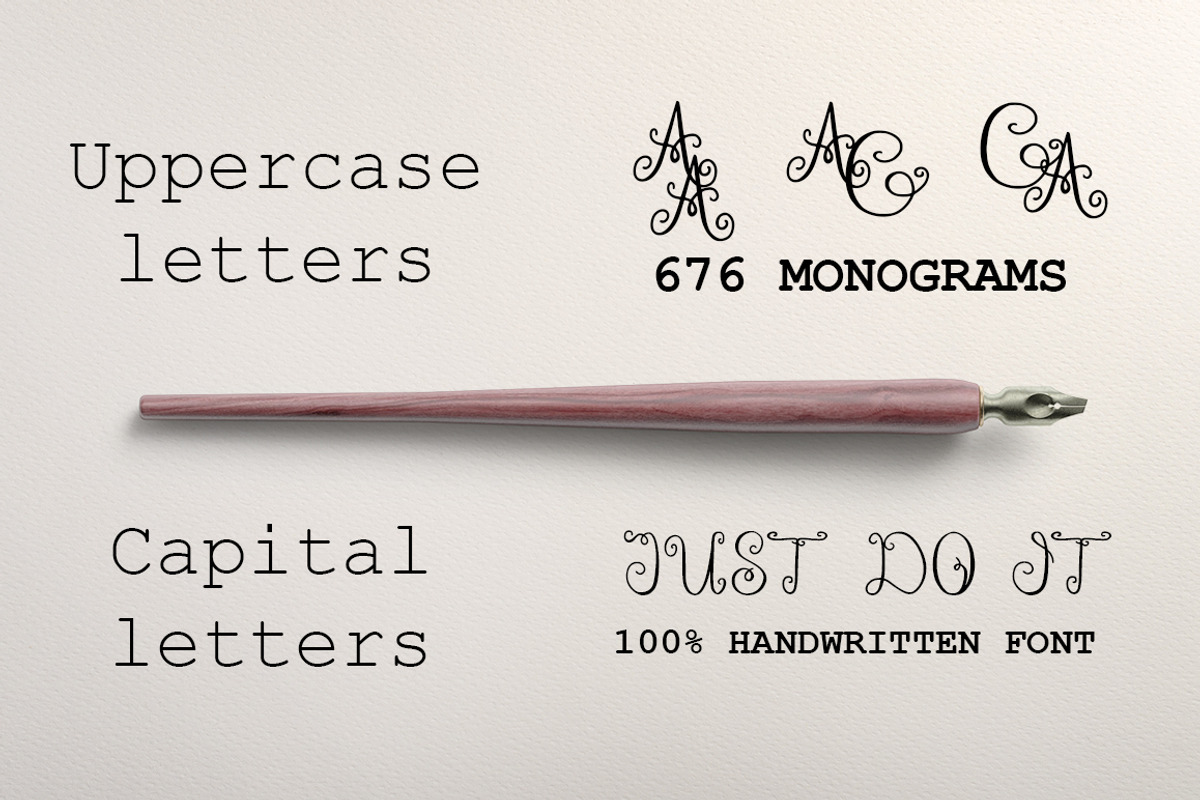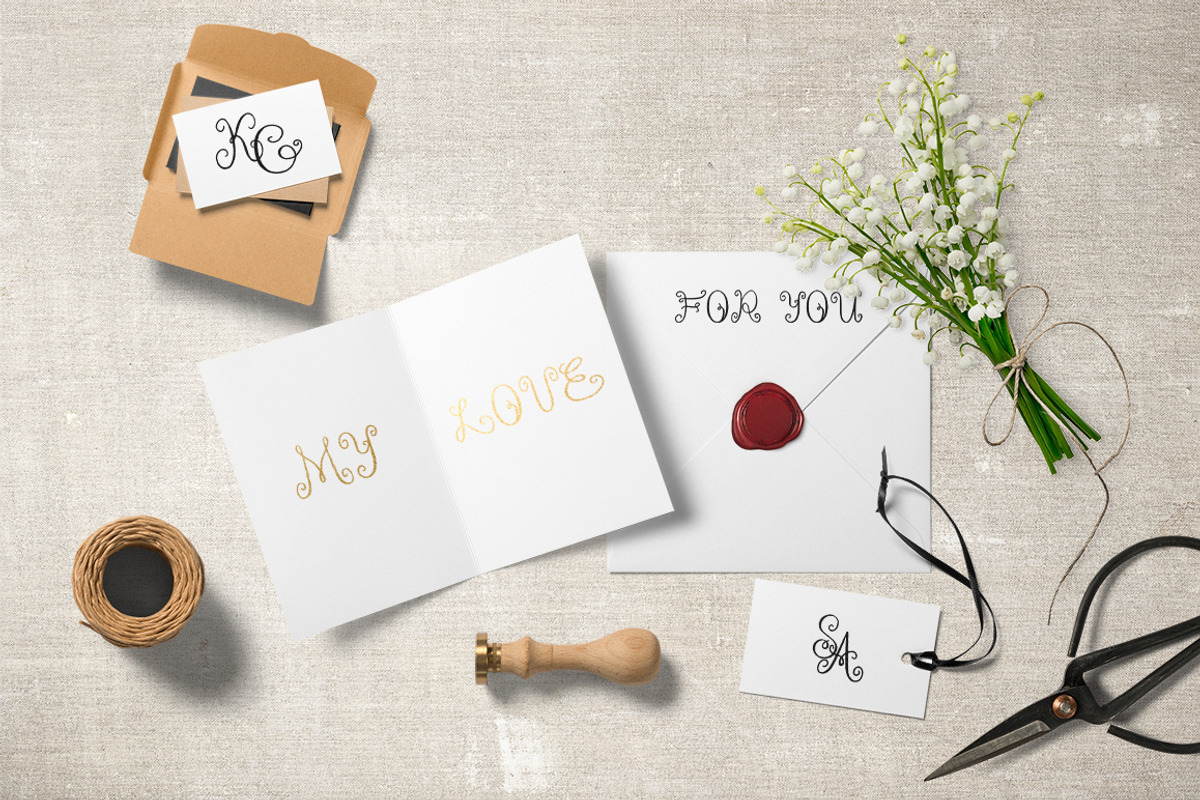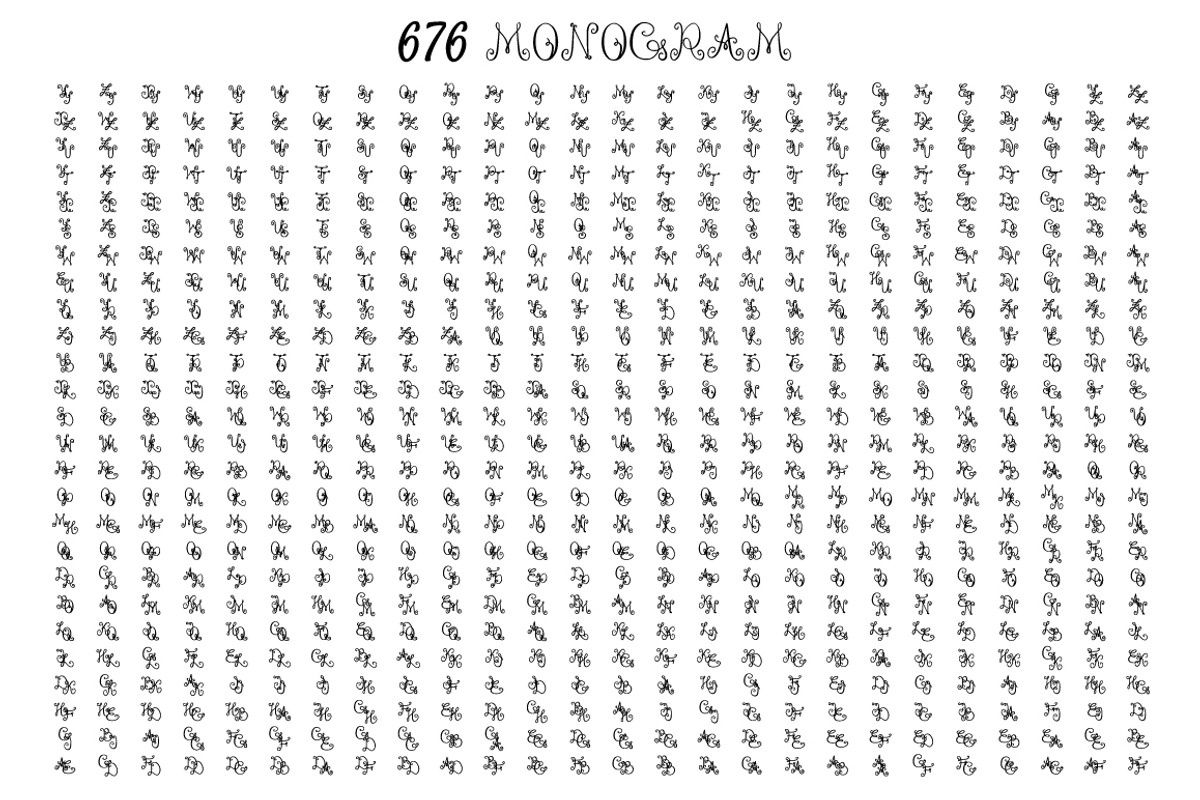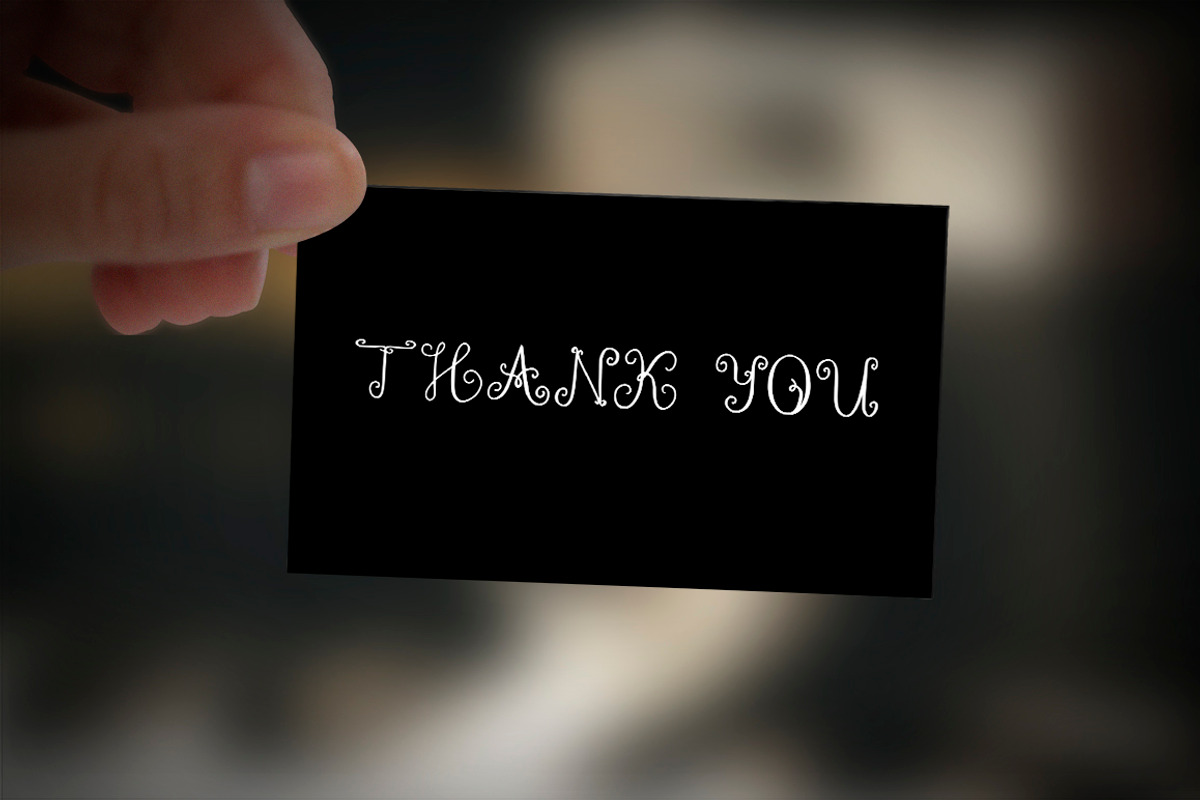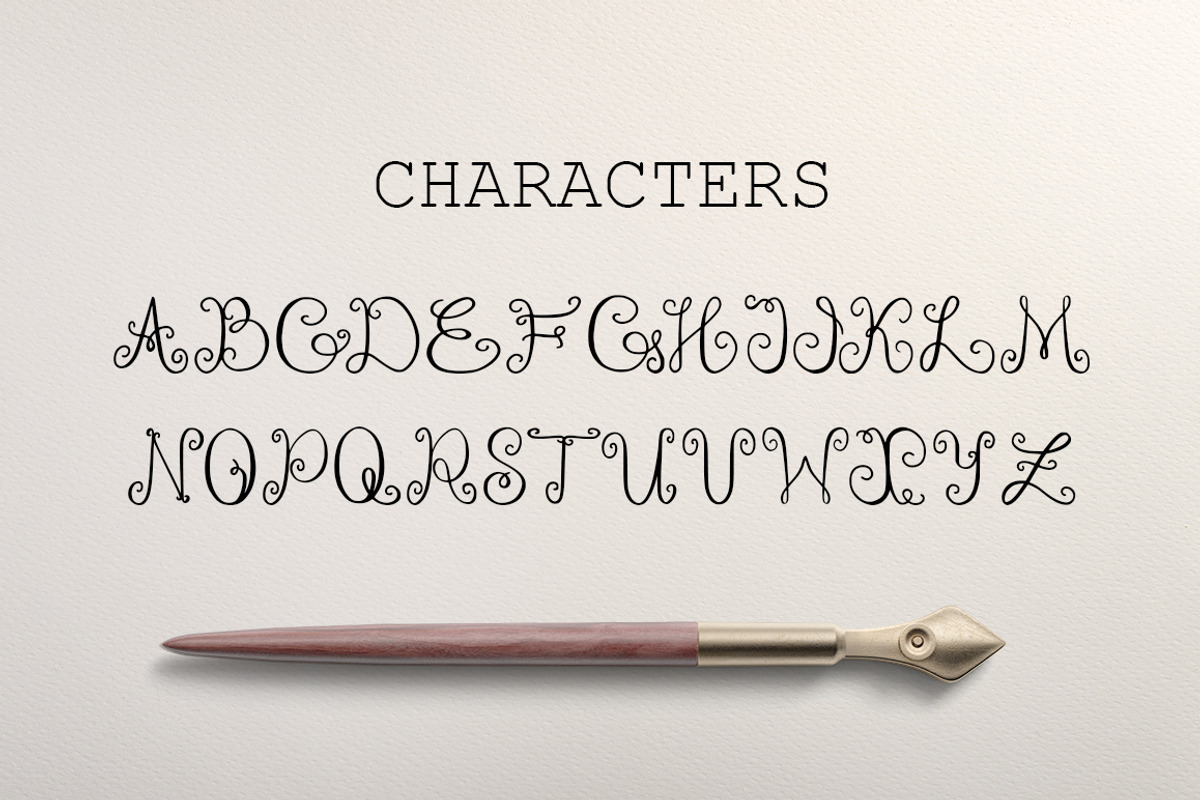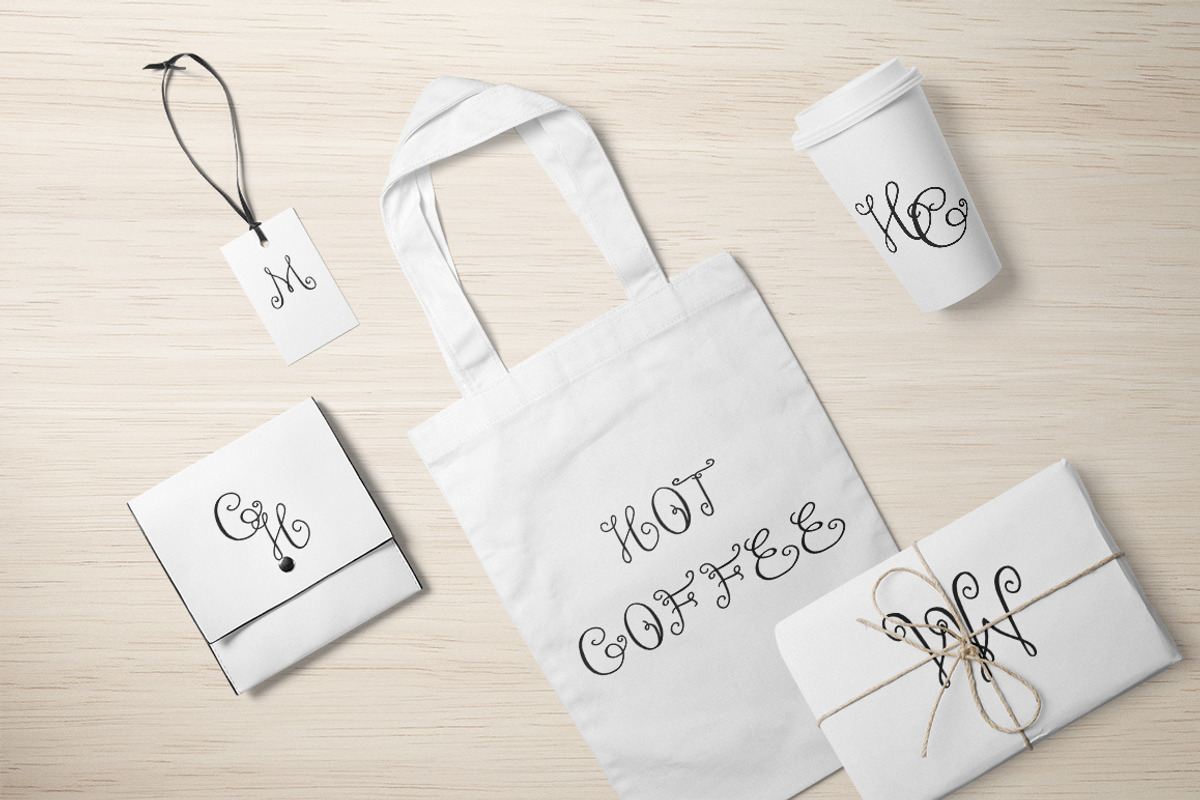
Monogram ELEGANTO Duo Font
Monogram ELEGANTO Duo font is a collection of interlocking 2-letter monograms created by simply keying in the 2 letters desired. Typing AB or BA gives you the beautiful AB or BA interlocking monogram.
This amazing compilation contains 676 2-letter monograms. Every 2-letter combination is represented, including combinations of the same letter (AA, BB, CC...).
Also you can written 26 capital letters. Just push capslock or shift!
Monogram ELEGANTO is a beautiful intertwined monogram. Each letter has being hand drawn with the purpose of making them join each other. Looks great in personalized products such as cards, mugs, shirts, cell phone cases, stationery... the possibilities are endless. And needless to say that they are PERFECT for any wedding project!
- This amazing compilation contains 676 2-letter monograms.